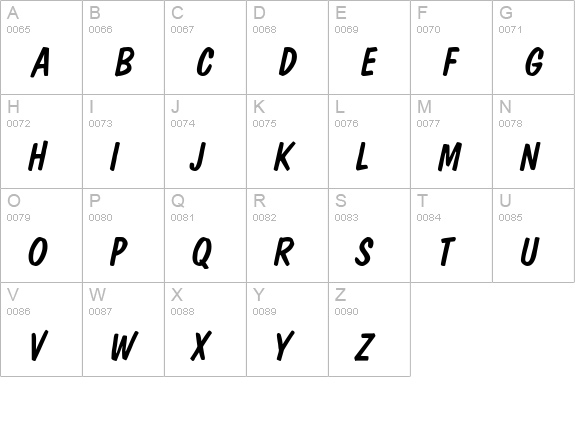
BrushDom Italic Font Details
BrushDom Italic is a distinctive, italic variant in the BrushDom typeface family \xE2\x80\x94 well suited to design and typography projects.
Introducing BrushDom Italic font - a stylish and versatile typeface that effortlessly captures the essence of modern calligraphy. With its fluid strokes and elegant curves, BrushDom Italic brings a touch of sophistication to any design project. Whether you're creating invitations, posters, logos, or branding materials, this font is sure to make a lasting impression. What sets BrushDom Italic apart is not only its exquisite design but also its accessibility. This premium font is available for free download exclusively at FontsMarket.com, making it easily accessible to designers, creatives, and enthusiasts alike. Embrace the beauty of BrushDom Italic and elevate your designs with its timeless charm and artistic flair.